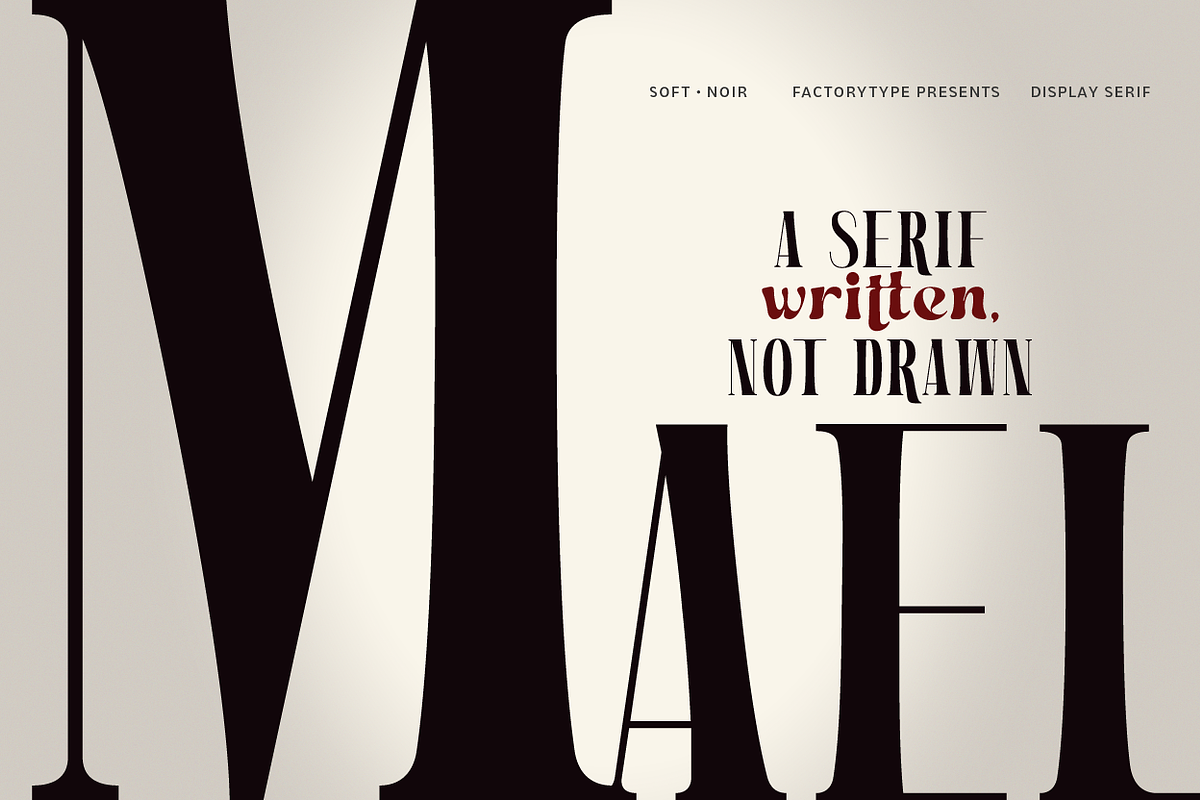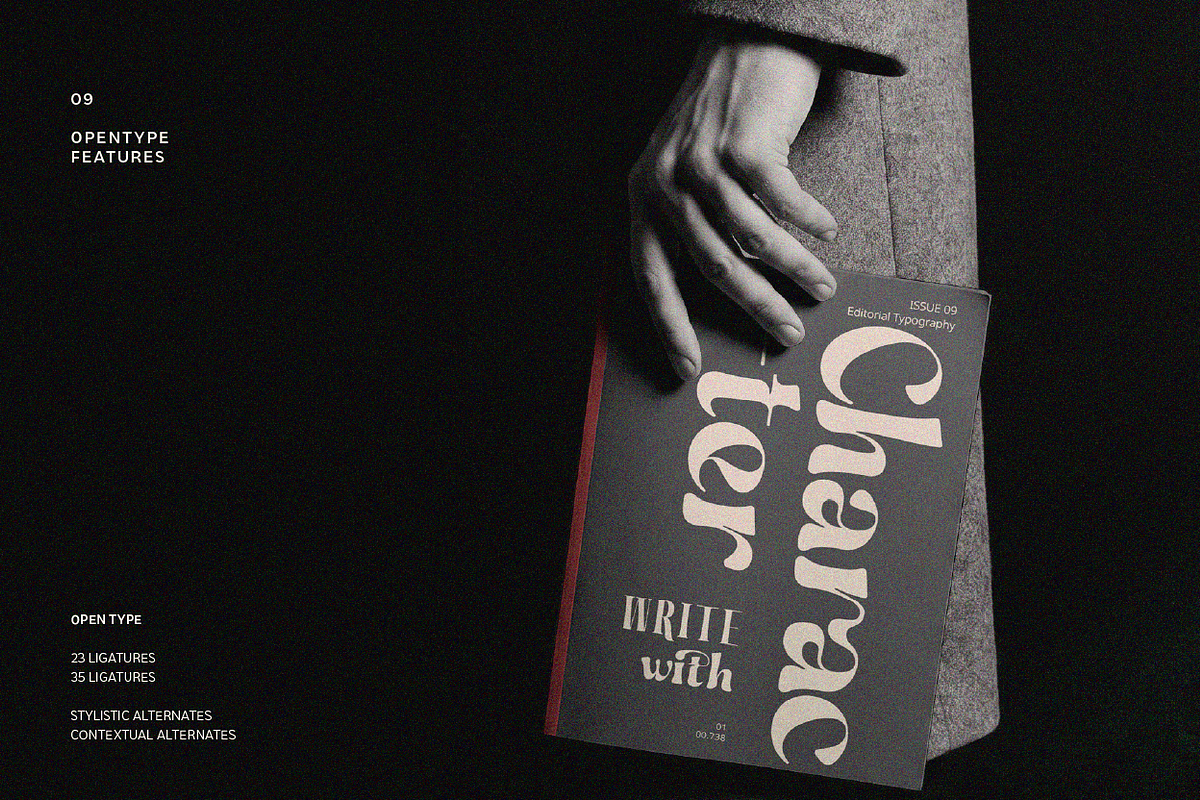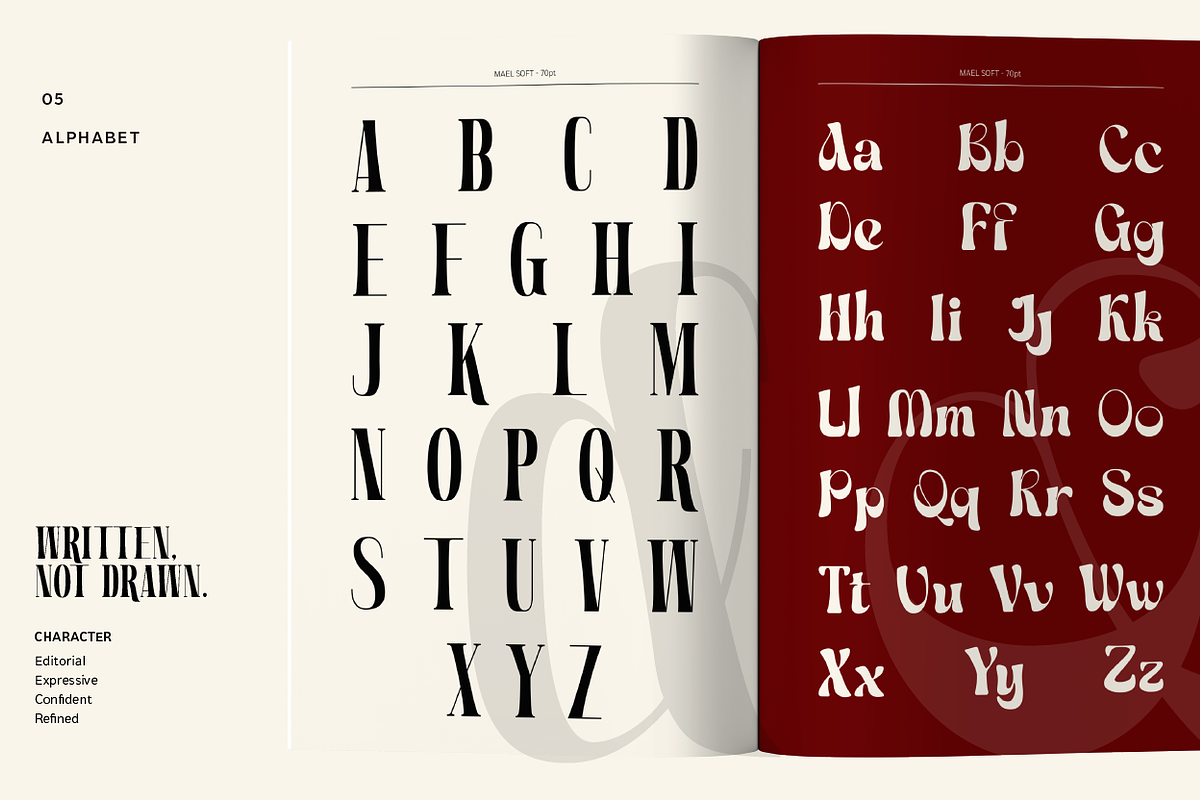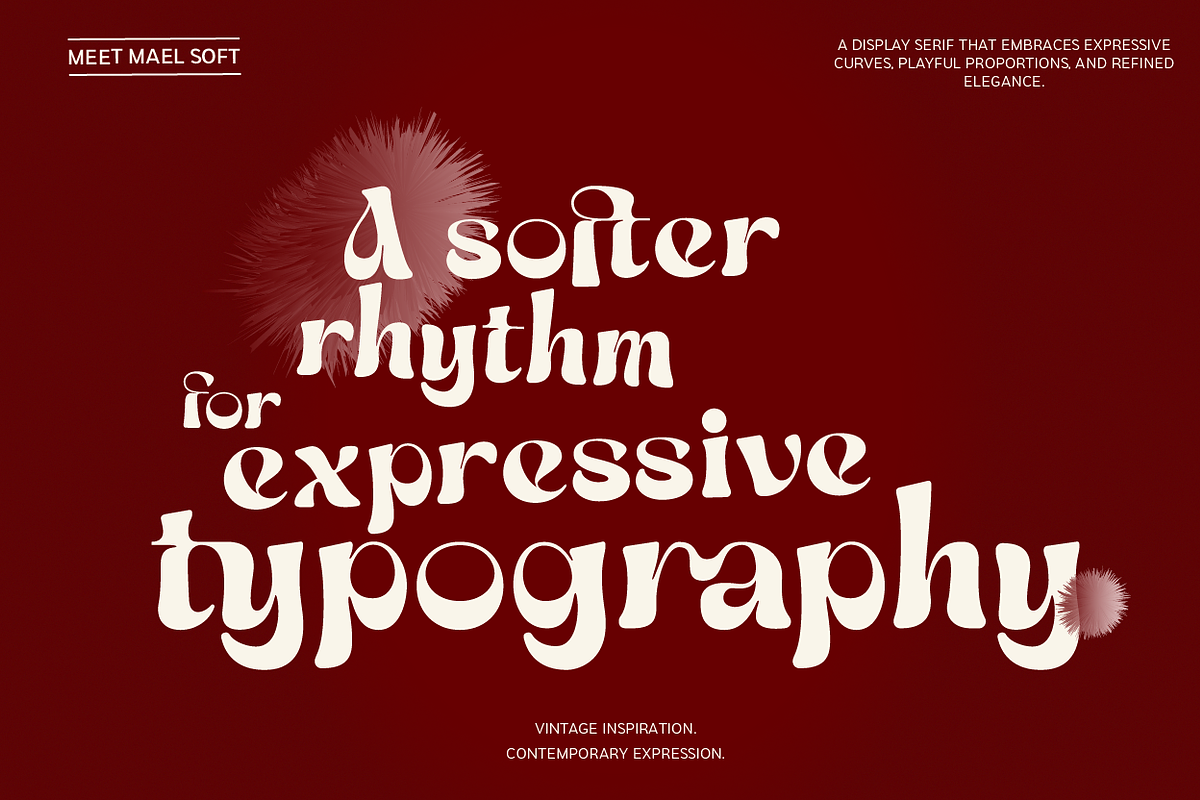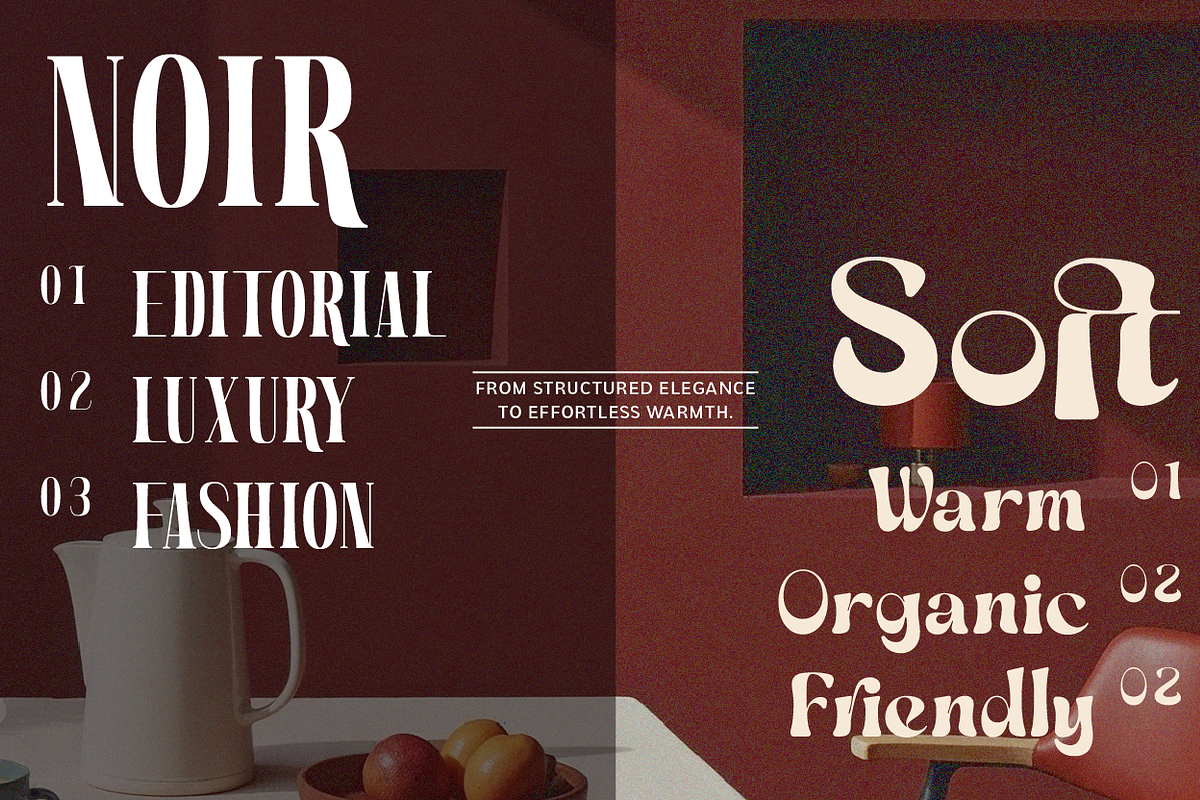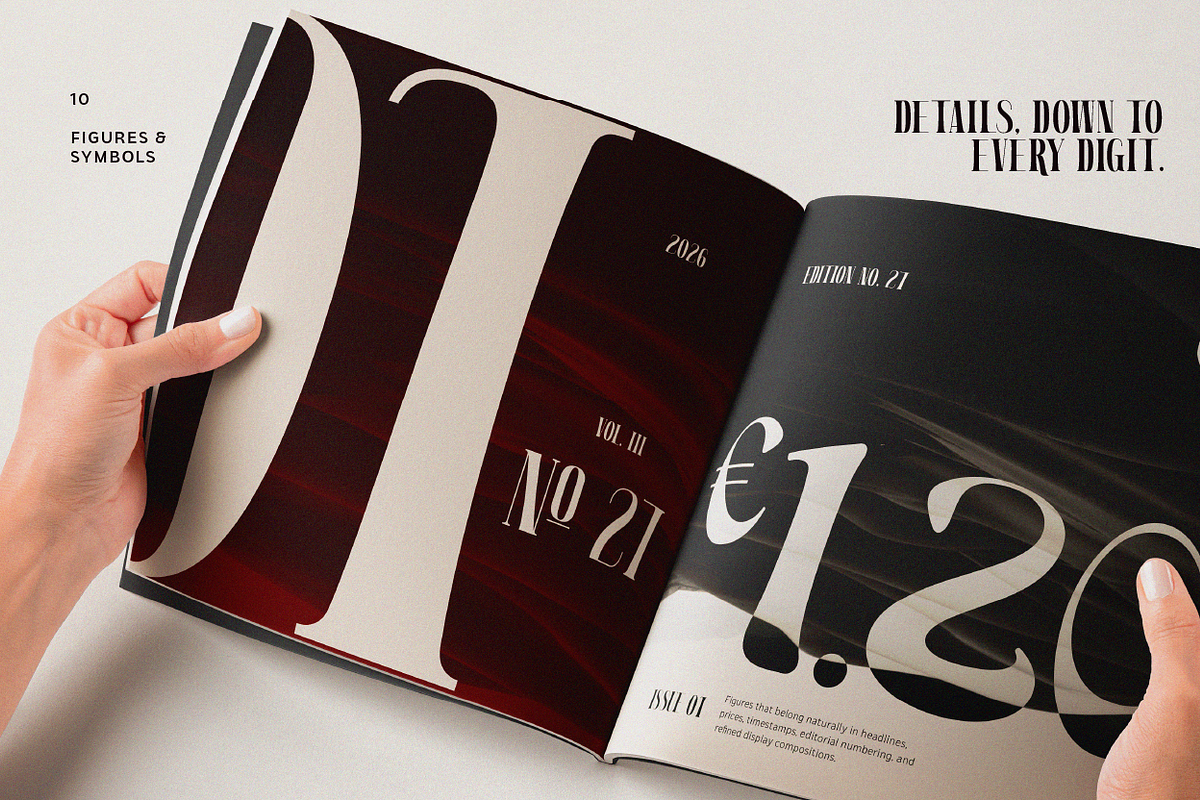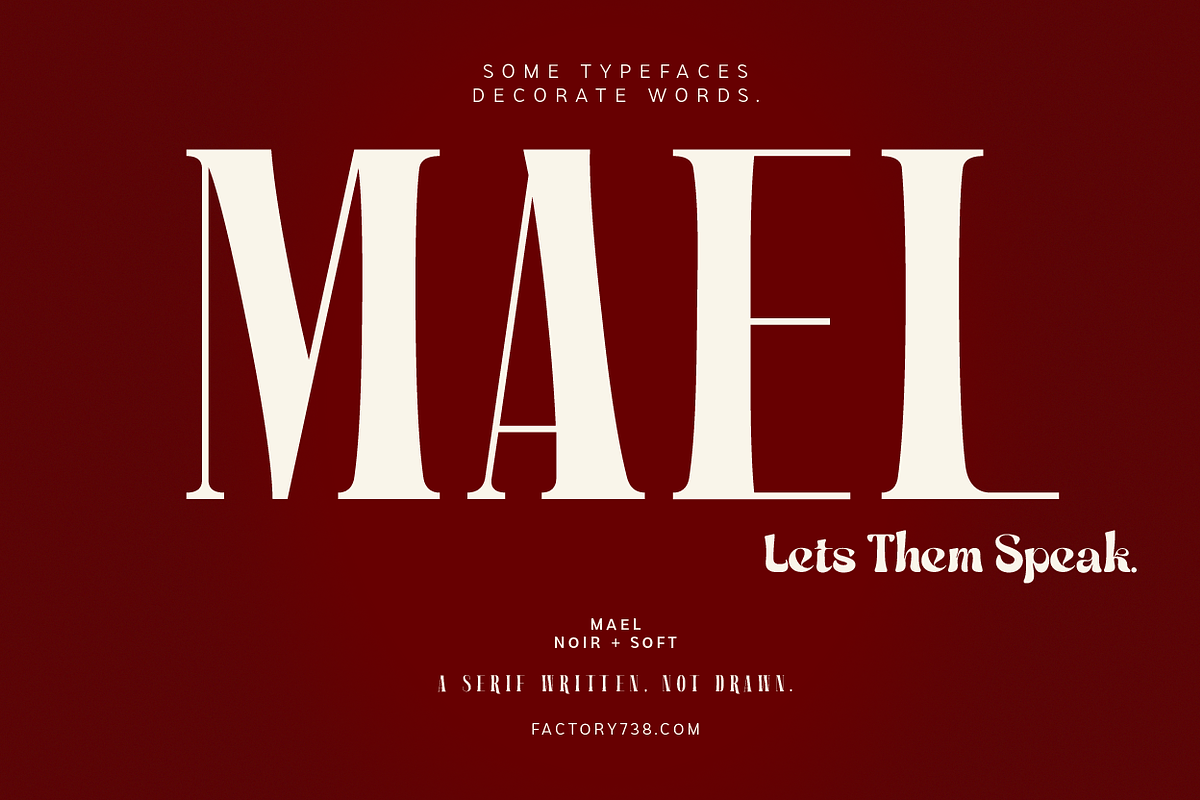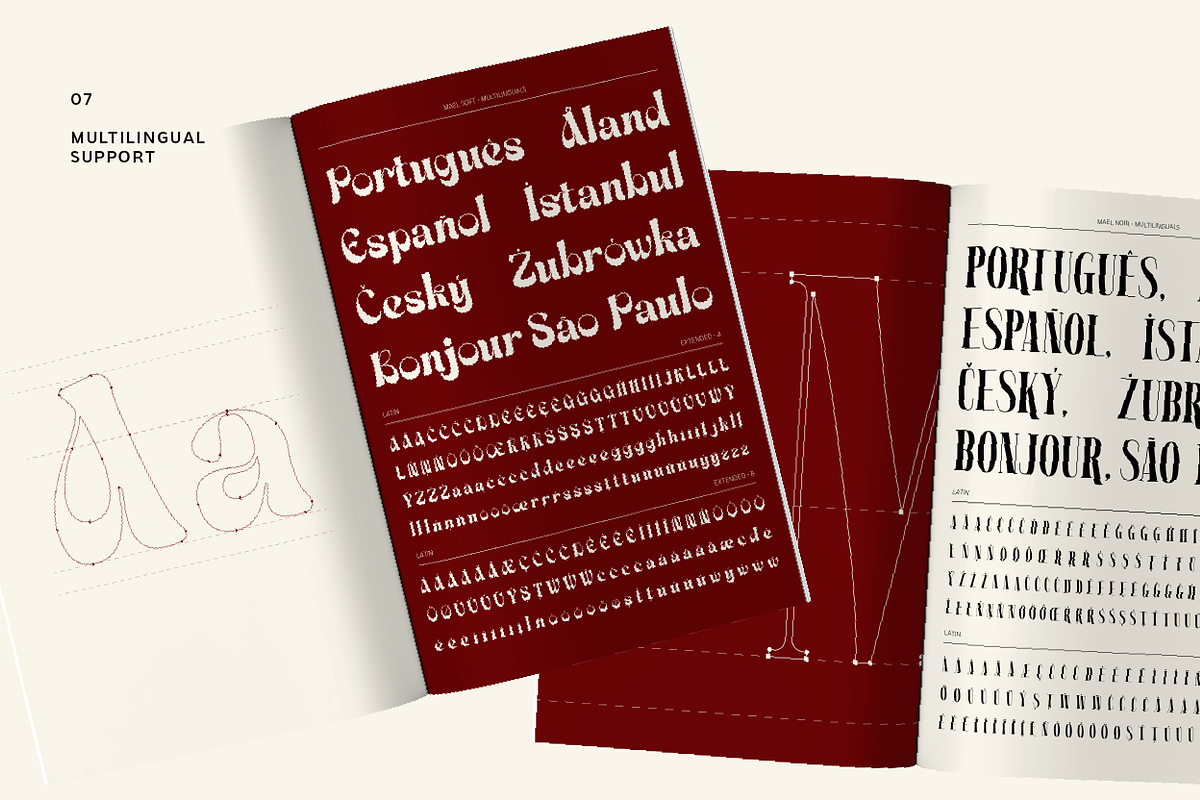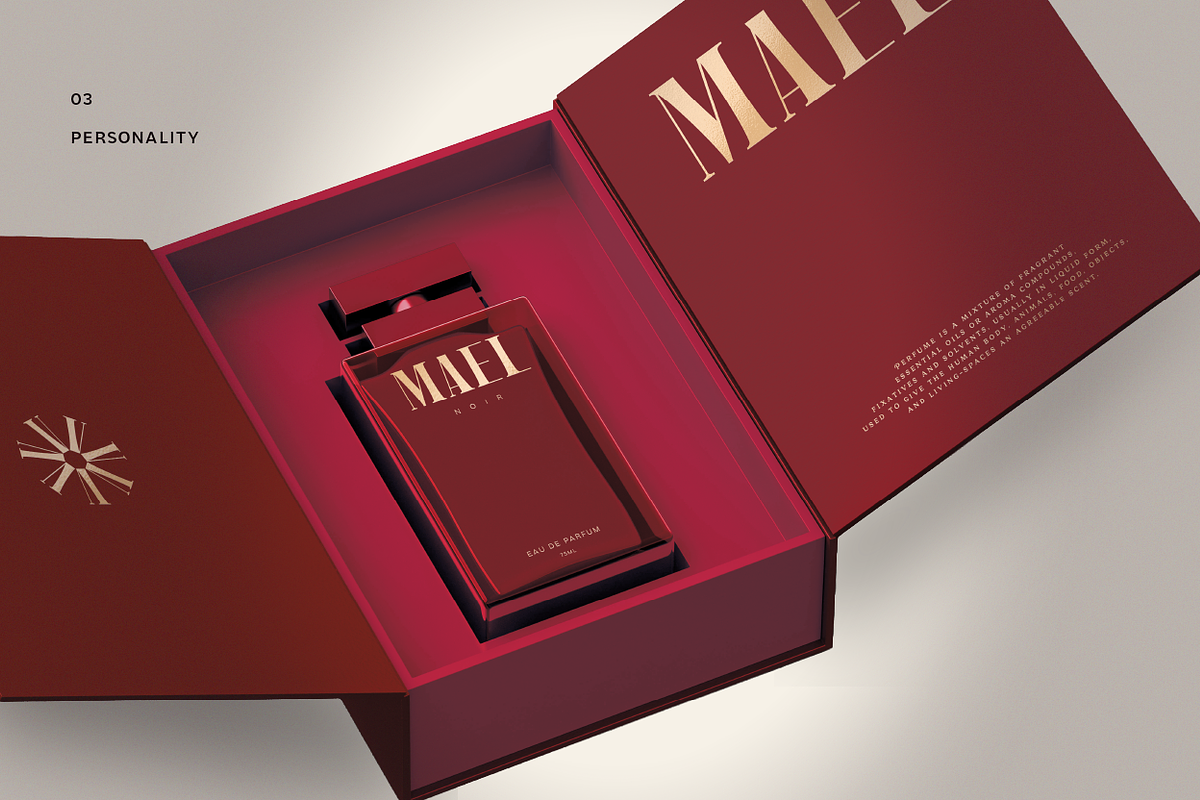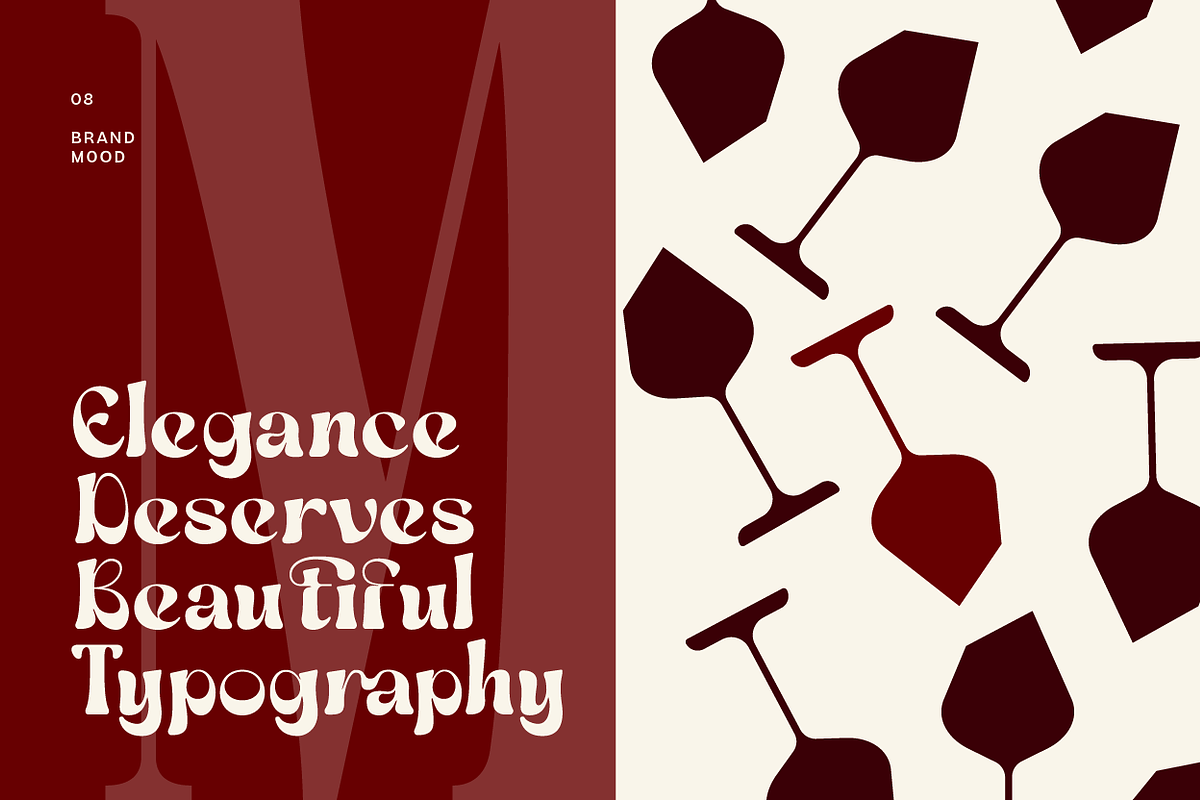
Mael – Luxury Editorial Serif
Some typefaces decorate words. MAEL lets them speak.
MAEL is a premium display serif duo that pairs editorial elegance with organic warmth. It includes two complementary styles—MAEL Noir and MAEL Soft—designed to create beautiful contrast in branding, packaging, headlines, and luxury design.
Whether you're creating a fashion campaign, perfume label, wine packaging, magazine cover, or boutique brand, MAEL delivers expressive typography with timeless character.
Perfect for Branding • Logos • Packaging • Editorial • Fashion • Beauty • Magazines • Luxury Products • Social Media • Headlines